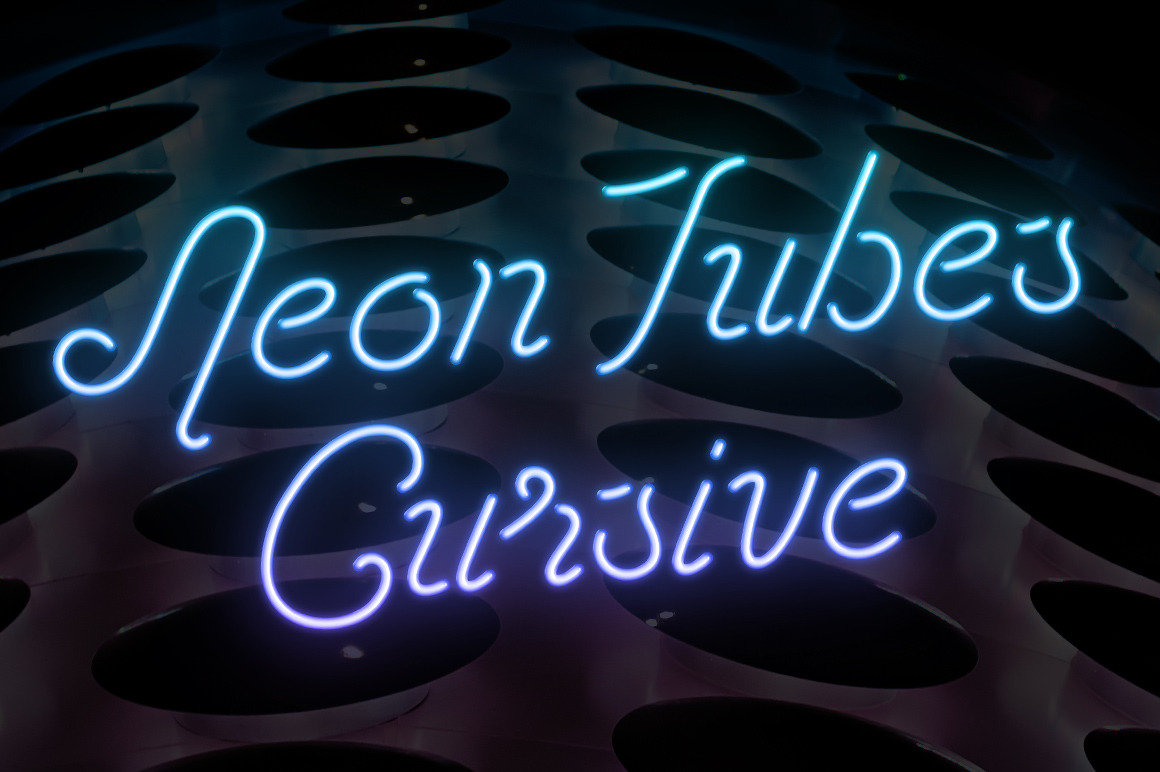
Neon Tubes Cursive is the new version of our popular Neon Tubes font. Cursive perfectly compliments the original with it's elegant, script-like appearance. This time featuring both uppercase and lowercase letters, in addition to the usual numbers, symbols and Western European accents.
Inspired again by real world signs, Neon Tubes Cursive has an almost hand written cursive style. Making use of minimal letter forms with smooth rounded corners and, true to real signs, only uses lines with open start and end points. This neon font is perfect for adding your own glowing light effects in html/css or can be used to actually design real world signage.
You can easily use this for online text content. Create a neon effect using pure css3, download it and use it in photoshop or illustrator, or use the text outline to create physical signs. Neon lights have become very popular design elements in the past few years. This is one of the most well-rounded, professional, and easy to use in the category. Download it and try it out, you'll have a sleek retro look going in your design before you know it.